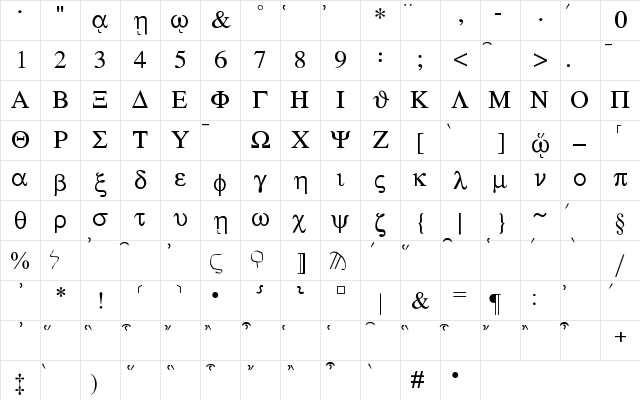
Sgreek Medium
Design Context for Sgreek
Sgreek is a composed and adaptable typeface that performs quietly and consistently across a wide range of design contexts.